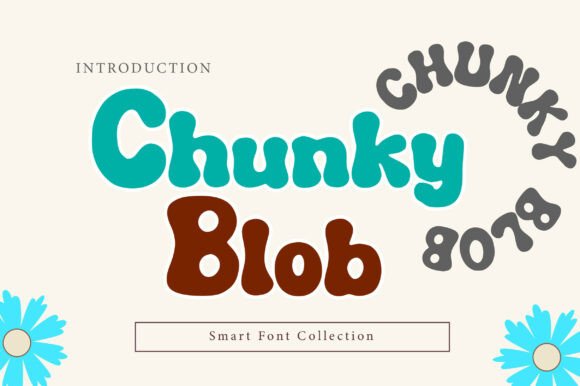
Get a Bouncy, Retro Vibe with the Chunky Blob Font
In a digital landscape saturated with minimalism and sharp geometric lines, there is a growing demand for typefaces that feel tactile, human, and undeniably joyful. Enter Chunky Blob, a bold display font that rejects stiffness in favor of soft, "melty" aesthetics. If you are looking to inject personality into your next project, this typeface offers a unique solution. It is designed to be visually heavy yet emotionally light, providing that perfect balance between impact and approachability. As a premium font asset, it serves a specific niche: designs that need to scream "fun" without sacrificing readability.
The Anatomy of a "Melty" Typeface
To understand why Chunky Blob works, you have to look at its construction. Unlike a standard sans serif font that relies on precise angles and straight lines, this typeface utilizes thick strokes with significantly rounded corners. The letters appear puffy and slightly squishy, resembling inflated vinyl or soft clay. This creates a sense of volume and three-dimensionality, even when rendered in flat 2D text.
The visual weight is distributed evenly, giving the font a "blobby" stability. This characteristic makes it a standout choice for logo design and packaging design where you need the text to hold its own against complex illustrations or busy backgrounds. It captures a distinct retro-modern flair, nodding to the groovy, organic shapes of 70s poster art while maintaining a clean, contemporary edge that fits today’s modern typography trends.
Strategic Applications: Where Chunky Blob Shines
Choosing the right display font is about context. While Chunky Blob is versatile within its style, it excels in environments that prioritize excitement and energy. Here is where this creative font delivers the best results:
- Kids and Educational Media: The soft, rounded shapes are inherently non-threatening and child-friendly. This makes the font ideal for toy packaging, educational apps, and cartoon titling.
- Food and Beverage Packaging: Particularly for snacks, sweets, and treats. The "squishy" texture of the letters subconsciously suggests softness and indulgence.
- Psychedelic and Retro Branding: If your brand identity leans towards the 60s or 70s aesthetic, Chunky Blob fits naturally. It pairs exceptionally well with bold, high-contrast color combinations and gradient meshes.
- Digital and Social Media: In the fast-scroll environment of Instagram or TikTok, social media graphics need to grab attention instantly. The heavy weight of this typeface ensures your headlines are legible even as thumbnails on small screens.
Beyond these specific niches, consider using Chunky Blob for party invitations, sticker sets, and merchandise like t-shirts or tote bags. It is a commercial font that bridges the gap between professional design and playful hobbyist projects.
Designing with Volume: Practical Typography Tips
Working with a heavy, bold display font requires a different approach than working with a standard text typeface. Because Chunky Blob has such a strong presence, it acts as a visual anchor. Here are a few practical observations for implementation:
Mastering Visual Hierarchy
Use Chunky Blob exclusively for headlines, sub-headers, and call-to-action buttons. Avoid using it for long paragraphs of body copy; its density can make large blocks of text difficult to scan. Instead, pair it with a clean, legible serif font or a simple sans serif font for the body text. This contrast creates a clear visual hierarchy, guiding the reader’s eye from the bold title to the detailed content.
Color and 3D Rendering
One of the standout features of this typeface is how well it responds to color theory. Because the letterforms are so thick, they provide a large surface area for gradients, textures, and shadows. For a truly impactful look, try rendering Chunky Blob in 3D. Adding a simple drop shadow or an isometric extrude can transform flat text into a tactile object, enhancing the "puffy" feel of the design assets.
Font Pairing Strategies
When selecting a companion font, look for contrast in weight and style. If you pair Chunky Blob with another heavy font, the layout will feel cluttered. Instead, try pairing it with a delicate script font for a feminine touch, or a monospaced typewriter font for a quirky, eclectic vibe. The goal is to let the personality of Chunky Blob shine without competing for attention.
Evaluating Fit and Licensing
Before finalizing your design, it is essential to evaluate if Chunky Blob aligns with your specific project goals. While it is perfect for playful branding, it may not be the right fit for a law firm or a luxury watch brand that requires strict formality and tradition.
Ultimately, typography is about voice. Chunky Blob speaks the language of joy, nostalgia, and bold confidence. By integrating this typeface into your toolkit, you gain the ability to instantly transform a standard layout into something memorable, engaging, and irresistibly puffy. Whether you are designing a flyer for a local event or building a global brand identity, don't be afraid to go bold.